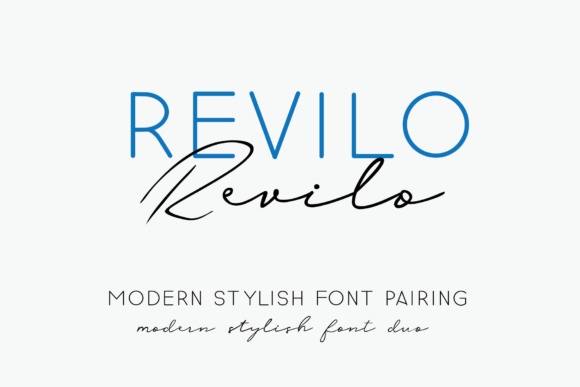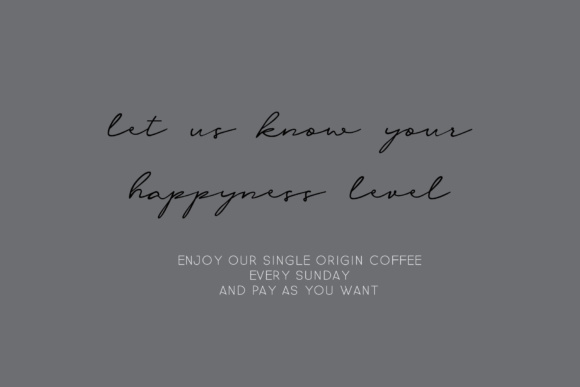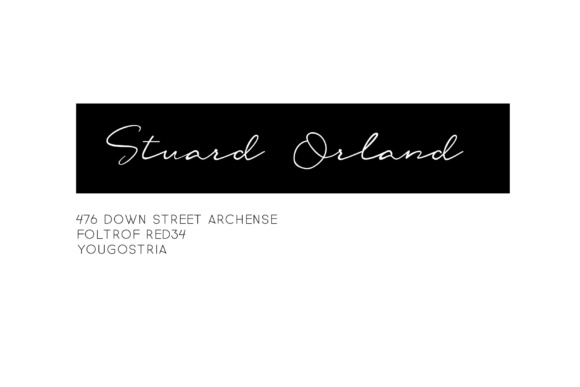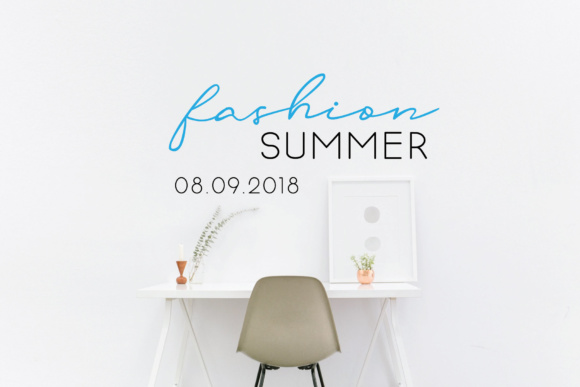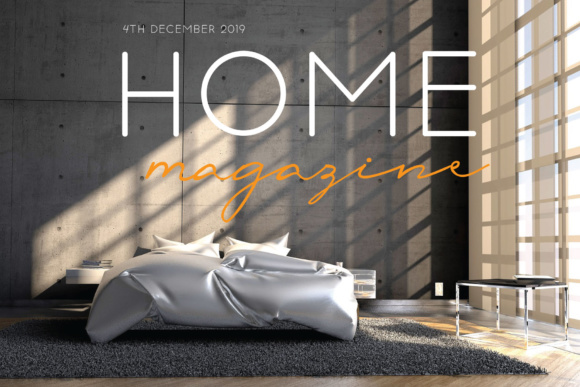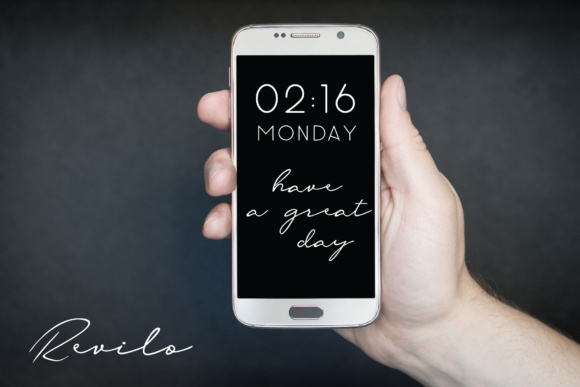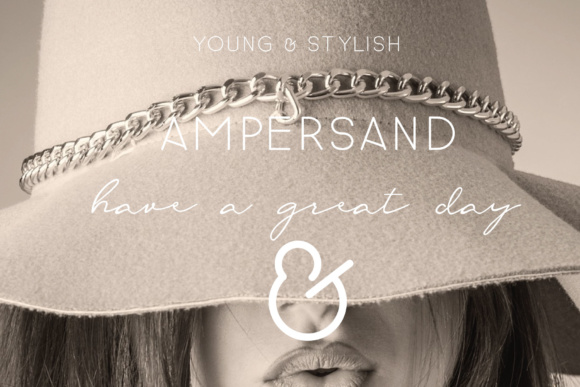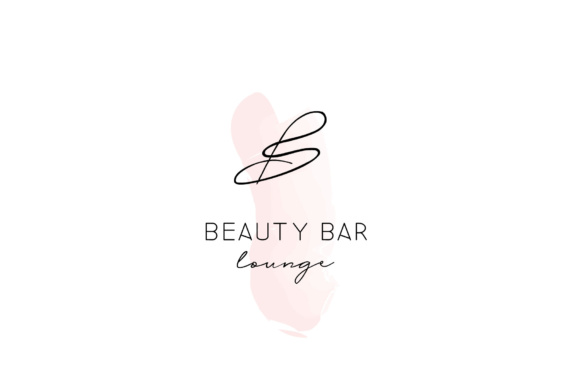
Revilo Duo Font
About Revilo Duo Font
The Revilo Duo is a modern, stylish font duo. It consists out of a neat thin sans serif, Revilo, and a playful flowing script, Oliver Quin.